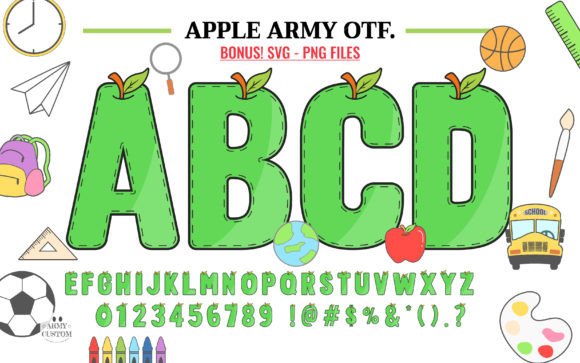
Introducing Apple Army Font: The Green Apple Alphabet That’s Making a Big Impact!
Are you tired of using the same old fonts in your creative projects? Look no further! Apple Army Font is here to shake things up with its fresh and fun green apple alphabet. This cool and useful color font is perfect for designers, crafters, and artists who want to add a pop of color and personality to their work. In this article, we’ll dive into the features and benefits of Apple Army Font, and explore how you can use it to take your creative projects to the next level.
A Font That’s Perfect for Creative Projects
Apple Army Font is a versatile and playful font that’s suitable for a wide range of creative projects. Whether you’re working on arts and crafts, scrapbooking, stationery, cards, party invitations, blog banners, or wall art, this font is sure to make an impact. The green apple alphabet is eye-catching and fun, and can add a touch of whimsy and personality to any design.
Why Choose Apple Army Font?
So why choose Apple Army Font over other fonts? Here are just a few reasons why this font stands out:
- Unique and eye-catching design: The green apple alphabet is a fresh and fun twist on traditional fonts.
- Versatile: Apple Army Font can be used for a wide range of creative projects, from arts and crafts to digital designs.
Here are a few tips and tricks to help you get the most out of Apple Army Font:
- Experiment with different colors: While the green apple alphabet is stunning, you can also experiment with different colors to match your brand or design style.
- Use it with other fonts: Apple Army Font pairs well with other fonts, so don’t be afraid to combine it with other fonts to create a unique look.
- Make it 3D: Use Apple Army Font to create 3D designs, such as signs, banners, or wall art.
Apple Army Font is a fun and versatile font that’s perfect for designers, crafters, and artists who want to add a pop of color and personality to their work. With its unique green apple alphabet and compatibility with a range of design programs, this font is sure to make an impact. So why wait? Download Apple Army Font today and start creating!